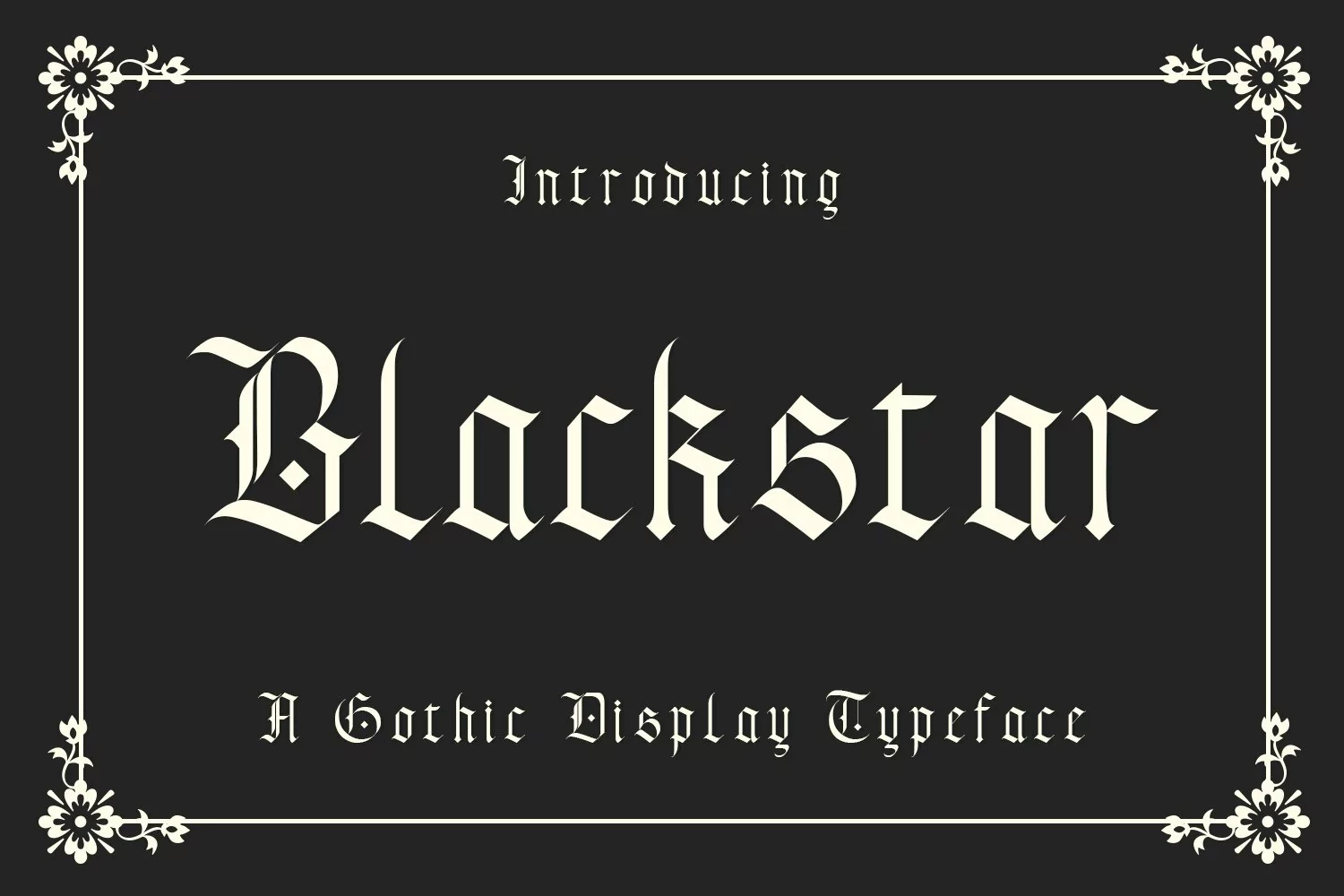
Black Star is a Gothic display typeface with a vintage feel. Reminiscent of Medieval text, this font has elegance. If you need a Gothic or vintage font for your next project or design then try using Black Star for a unique and creative vibe. Great for headlines, posters, and more!